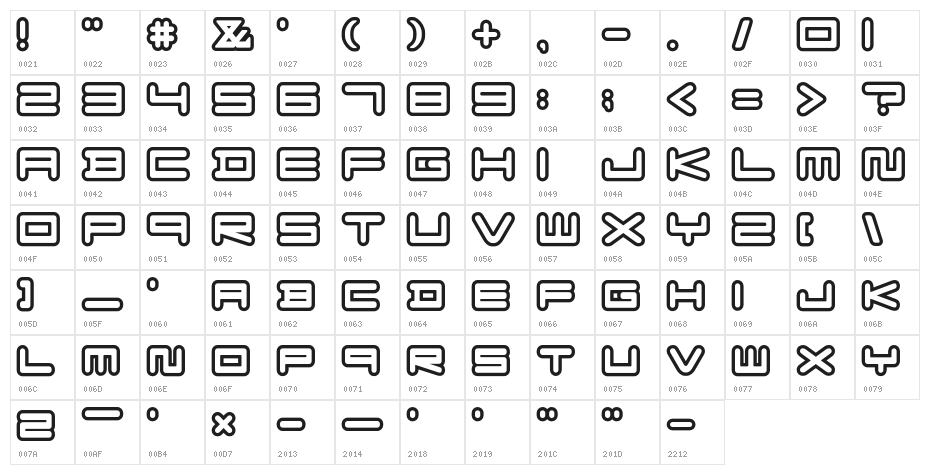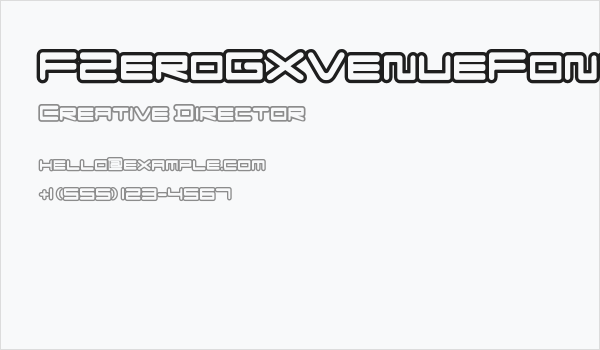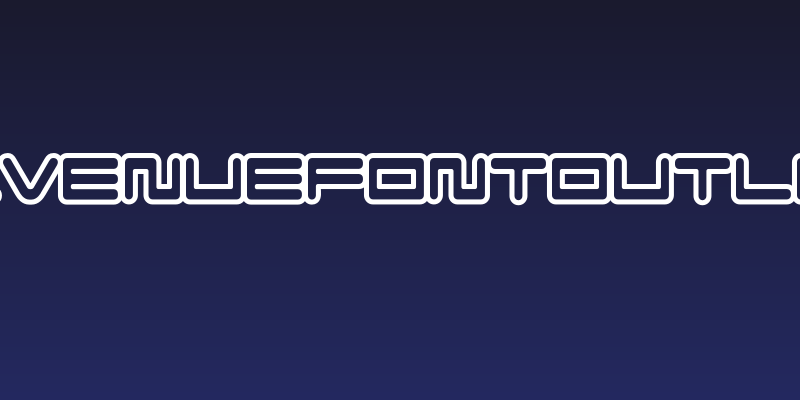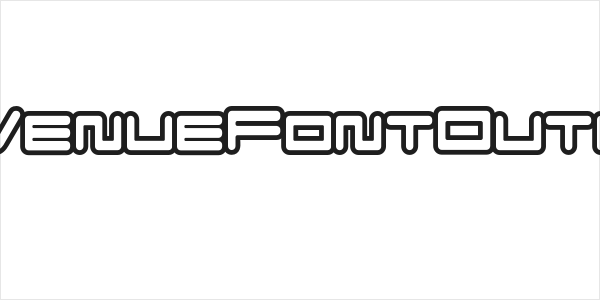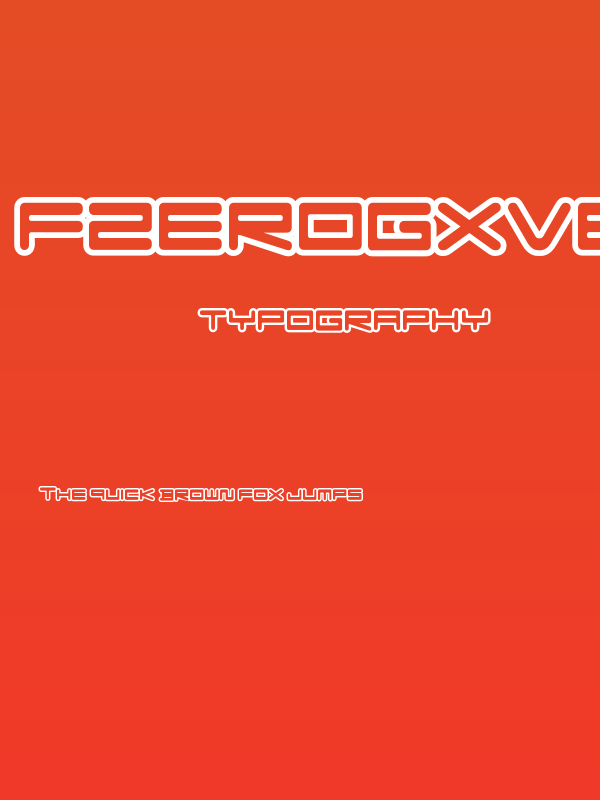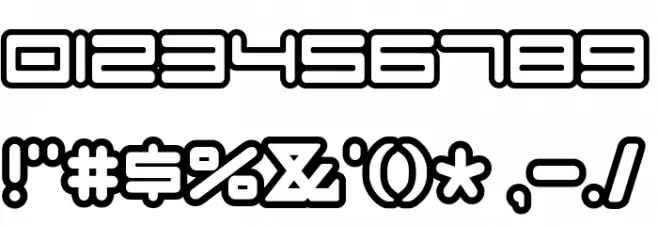
FZeroGXVenueFontOutlines-Reg Font
FZeroGXVenueFontOutlines-Reg Description
This font features a futuristic and bold design with an outlined style that gives each character a distinct and eye-catching appearance. The letters are uniformly structured with rounded edges, creating a smooth and modern look. The uppercase and lowercase letters maintain a consistent height, contributing to a cohesive visual flow. Numbers and special characters are designed to match the overall aesthetic, ensuring versatility across various applications. The font's geometric shapes and clean lines make it suitable for digital and print media, where a modern and tech-inspired feel is desired.
| Use Case | Headlines, Logos, Digital interfaces |
| Proposed Projects | Ideal for video game titles, tech branding, digital interfaces, and futuristic-themed posters. |